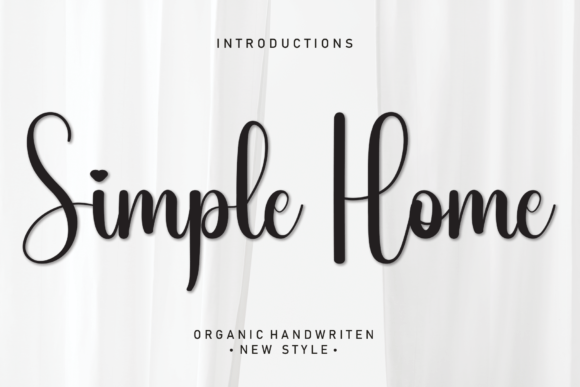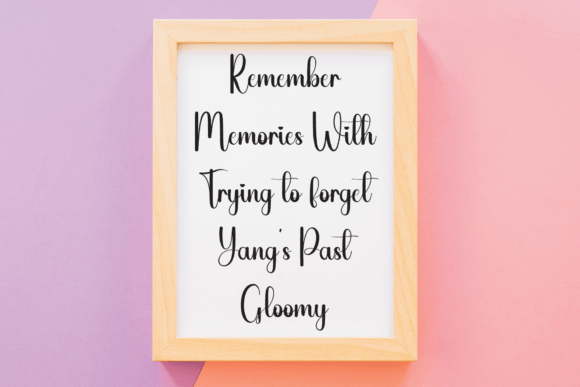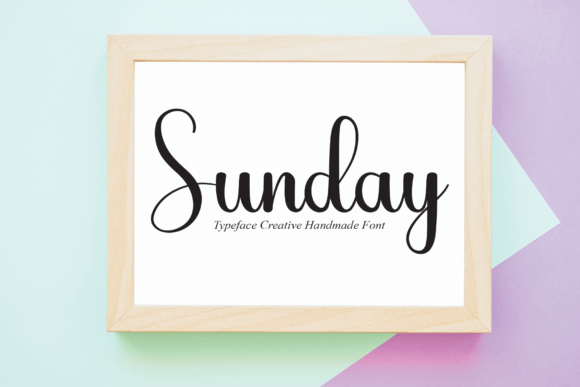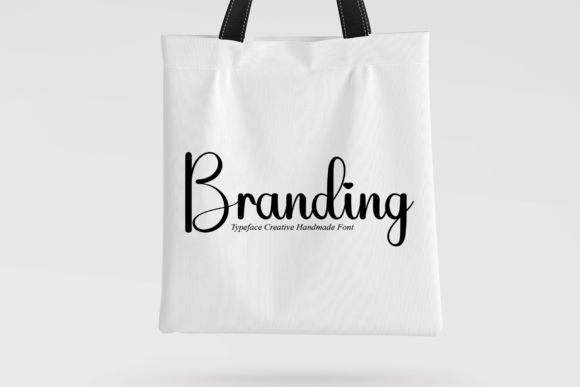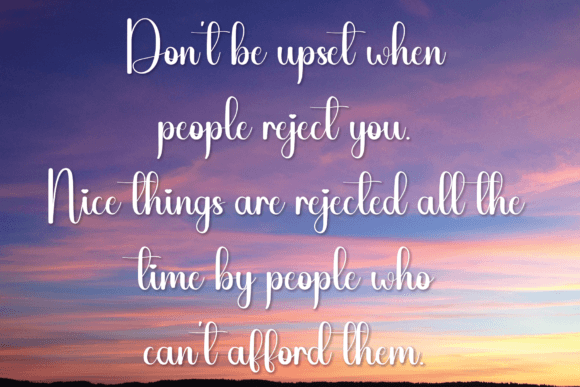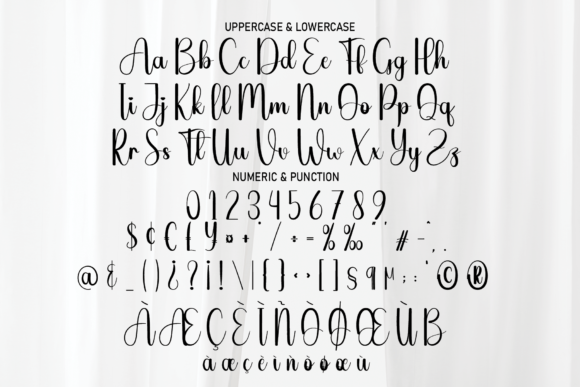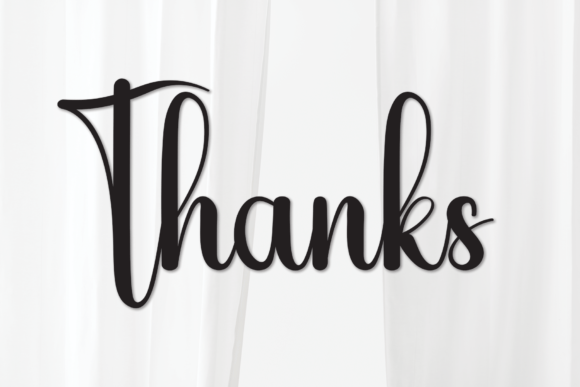
About Simple Home
the latest style letters are perfect for wall displays, wedding invitations, social media post logos,
advertisements, product packaging, product designs, labels, photography, watermarks, invitations, stationery,
and any project that requires taste handwriting.